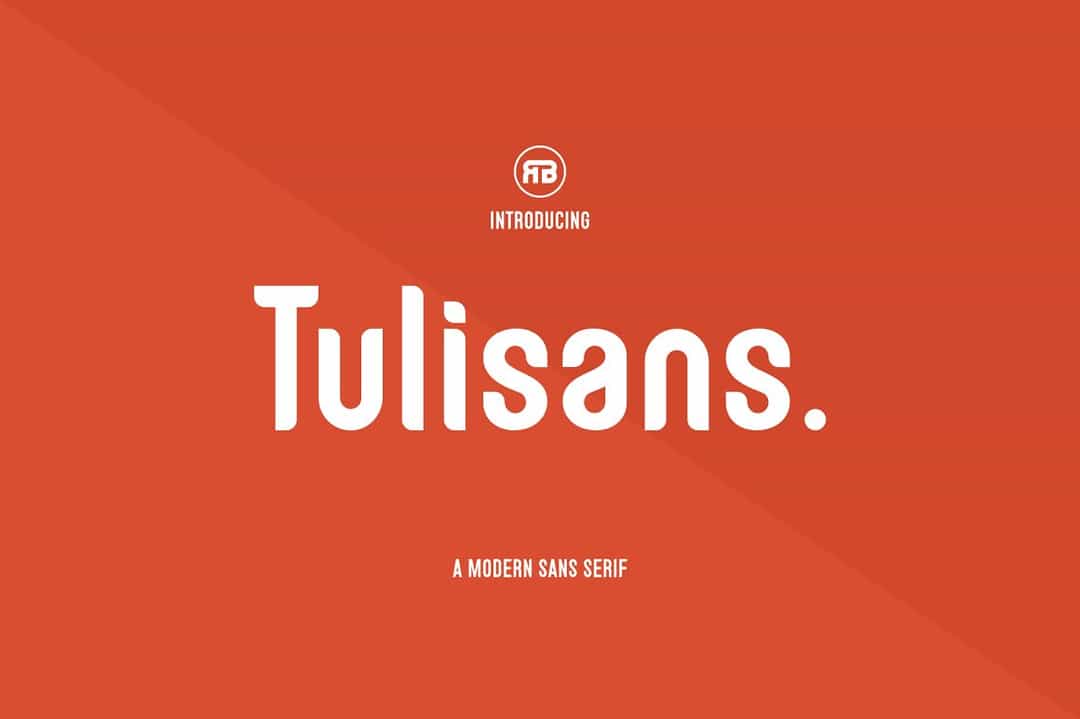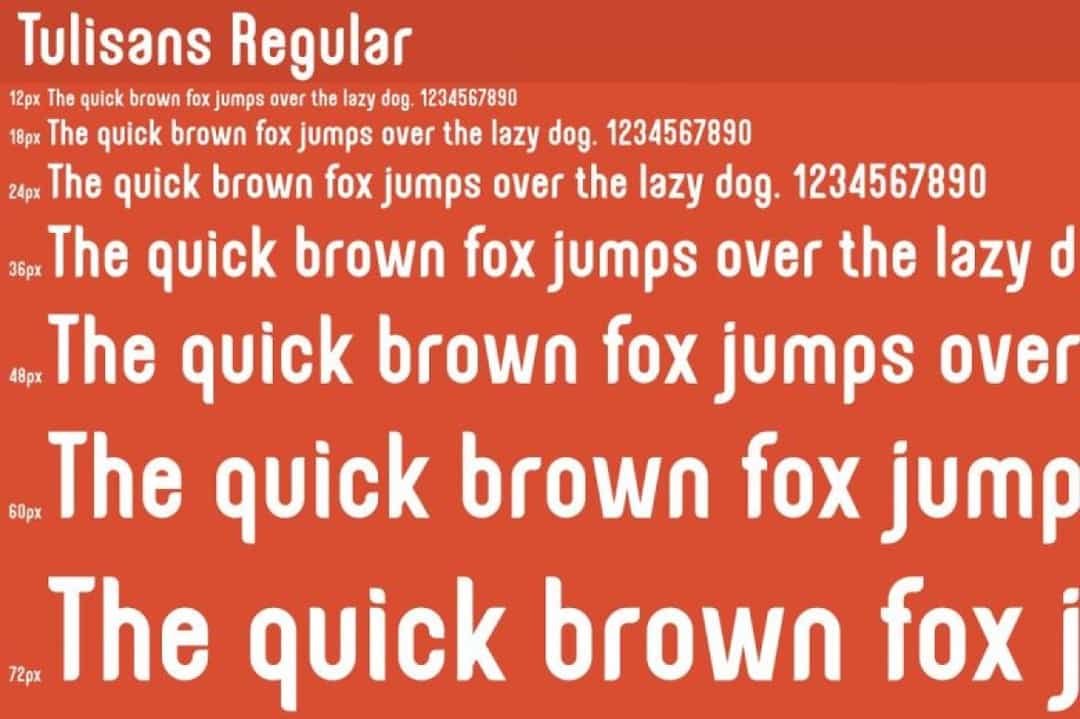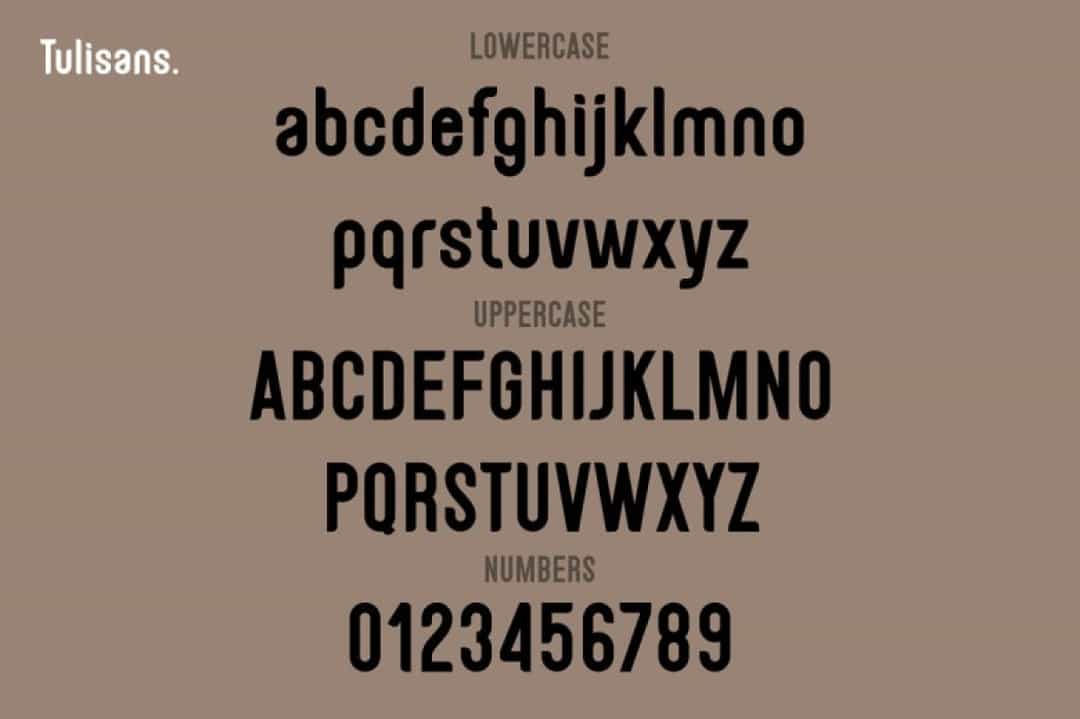
Tulisans font is an easy sans serif font with semi-rounded edges for an elegant and sleek look, perfect for logo designs subtitles titles branding microtext as well as tiny amounts of text. Fonts include uppercase letters along with numbers and other commonly used symbols and support for multilingual languages.